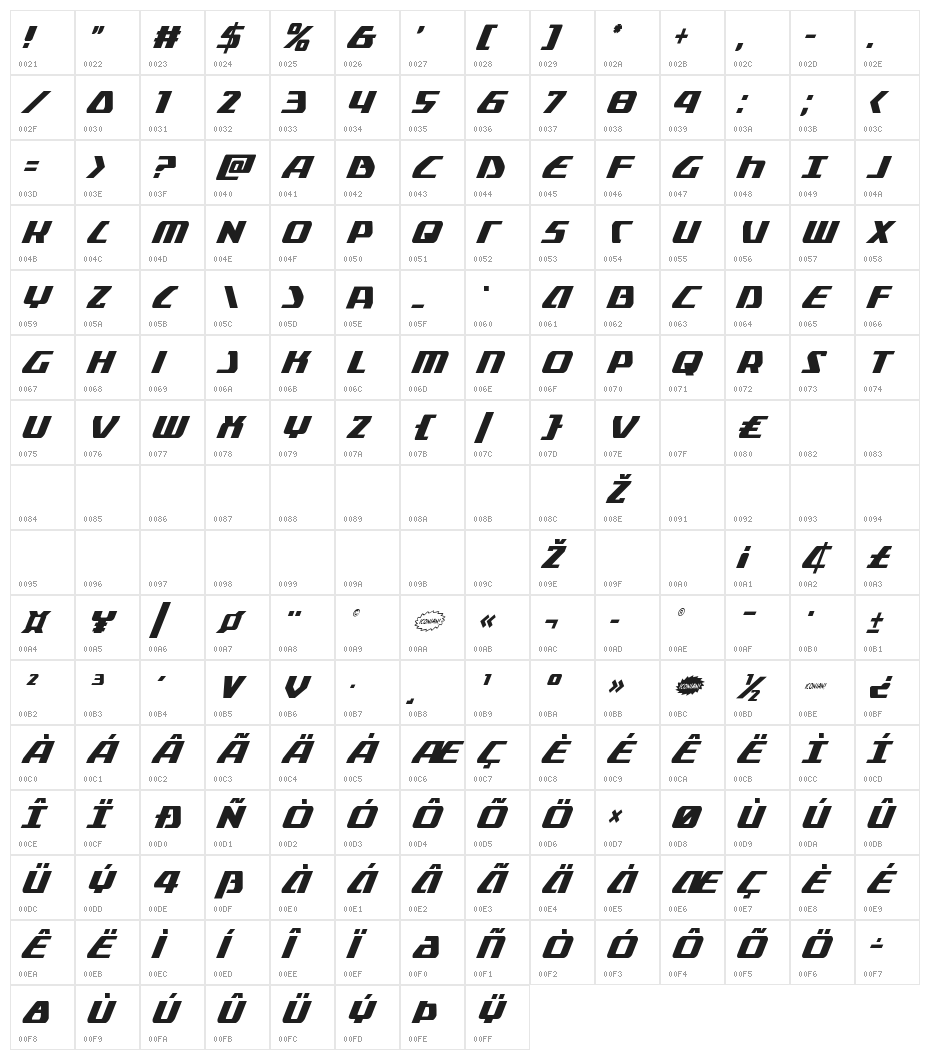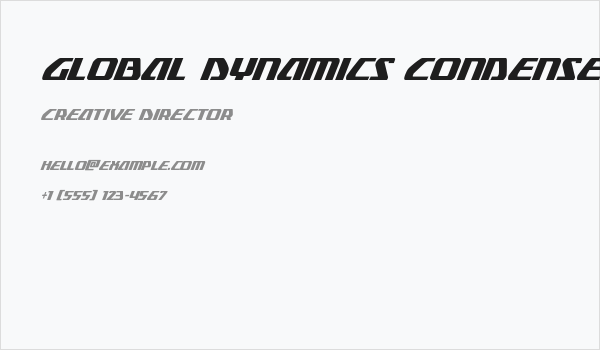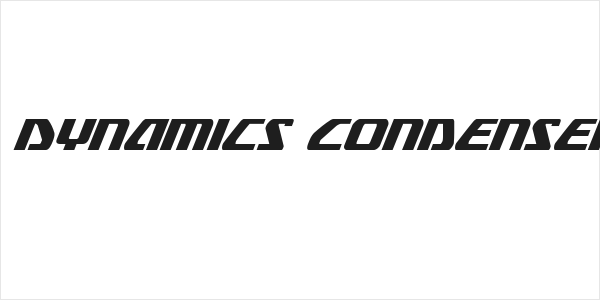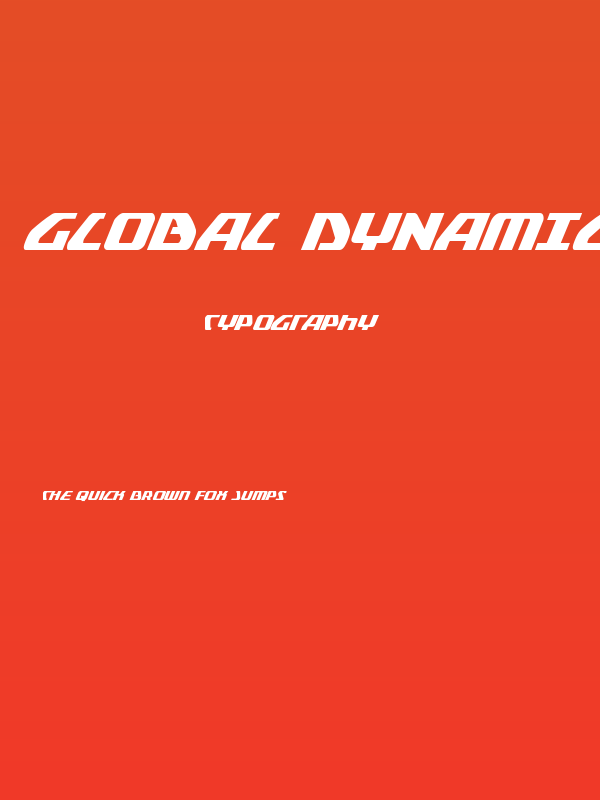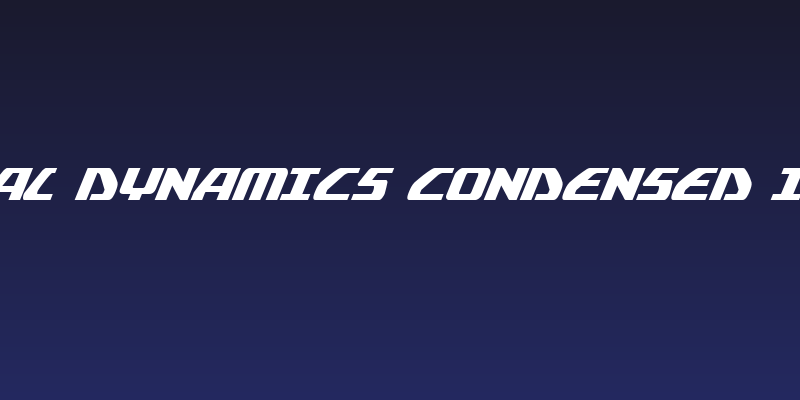
Global Dynamics Condensed Italic Font
Global Dynamics Condensed Italic Description
This font features a dynamic and futuristic style with a strong italic slant, giving it a sense of motion and speed. The characters are condensed, enhancing the compact and efficient appearance. Each letter is designed with sharp angles and clean lines, contributing to a modern and sleek aesthetic. The uppercase and lowercase letters maintain a consistent style, while the numerals and special characters complement the overall design. This font is ideal for projects that require a bold and impactful visual statement.
| Proposed Projects | Ideal for branding, sports team logos, technology-themed designs, and dynamic advertising materials. |